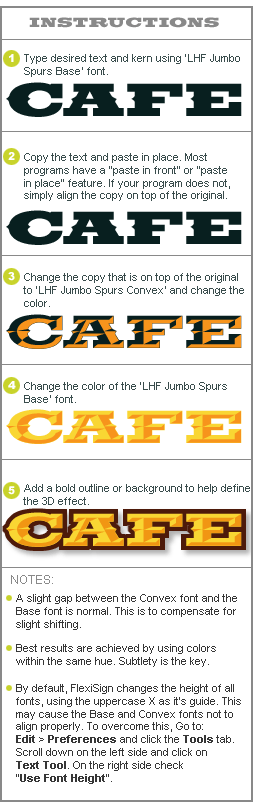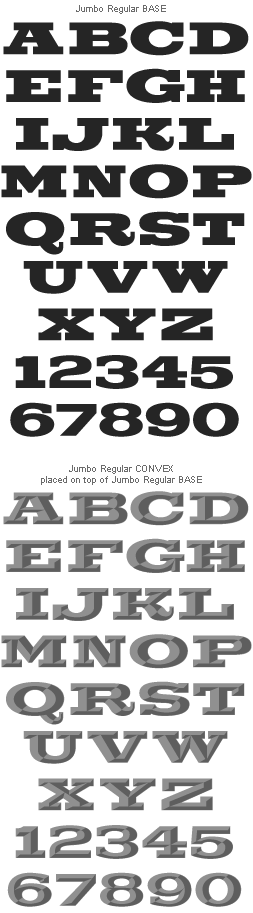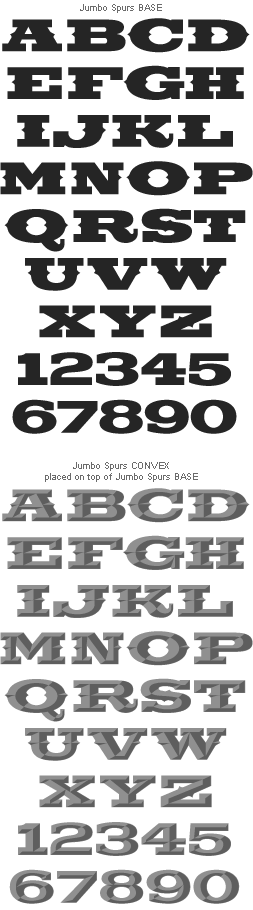
Bold, extended letters command attention. Perfect for your next rodeo or square dance. Includes Convex fonts to create 3D prismatic effects by laying them on top of the Base fonts. See instructions below left.
For those users that have difficulty aligning the two fonts together (such as Gerber Omega) the set also includes "Full" versions that have Base and Convex fonts combined together in one font. When using these "Full" fonts, the user must break the font apart by converting to curves or outlines in order to manipulate. For this reason it is recommended to use the Base/Convex fonts together as intended when possible.